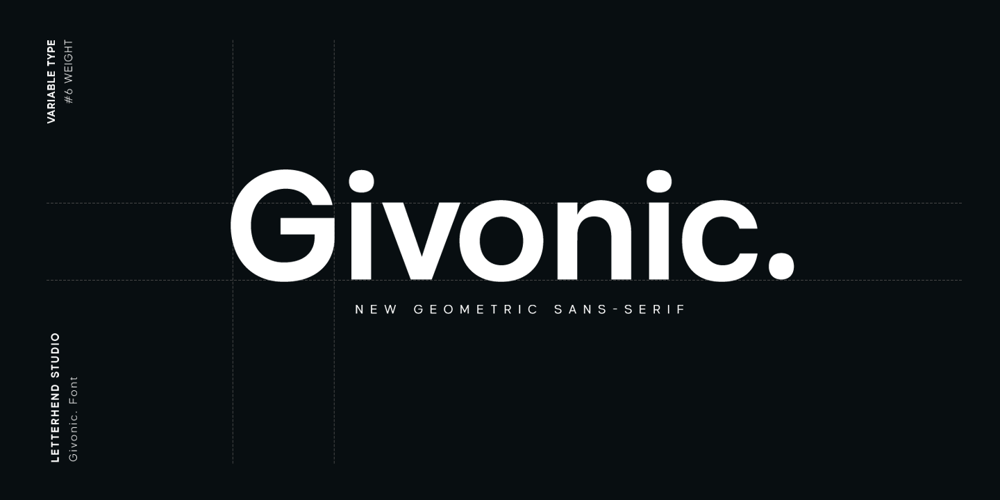
Givonic Font Family was designed by Hendry Juanda and published by Letterhend. Givonic contains 6 styles and family package options. Givonic is a new geometric sans serif and clean variable font. The typeface is versatile to blend in your design- with 6 weight, ranging from regular, medium, thin, bold, semibold, extrabold, light, extralight and black & 18 styles + variable type to touch a lot of personality. Perfect anywhere you need a right finas touches for branding, publishing, titles, book, magazine , and use on UI/UX design.Features:Variable Fontuppercase & lowercasenumbers and punctuationmultilingual9 weight & 18 StylePUA encodedMore about variable fonts : https://creativemarket.com/blog/what-is-a-variable-fontif you have any questions don’t hesitate to send our email at letterhend.com/tutorials/using-opentype-feature-in-any-software/